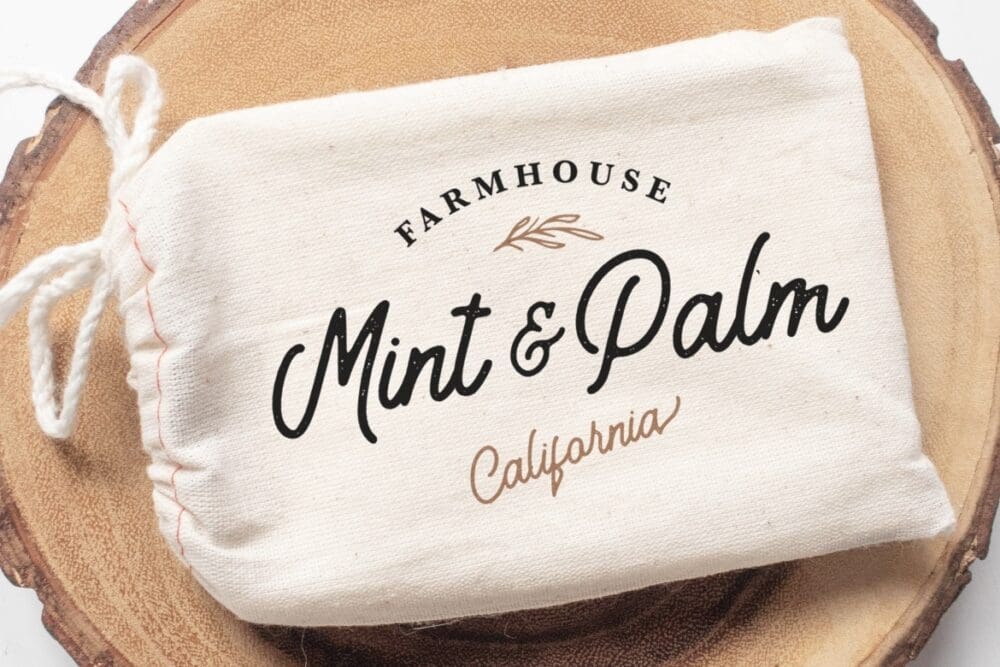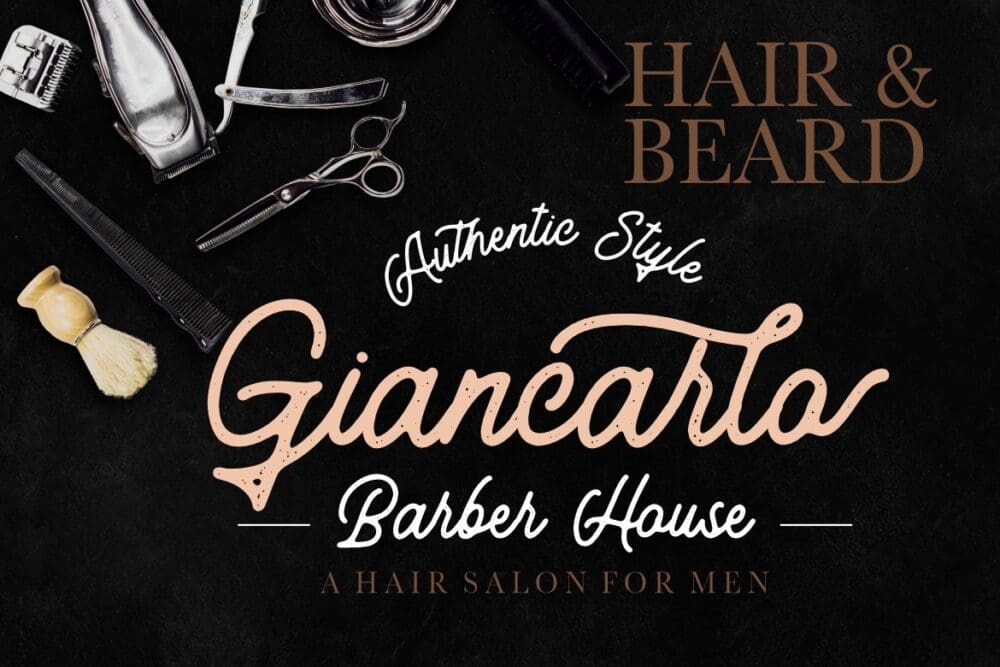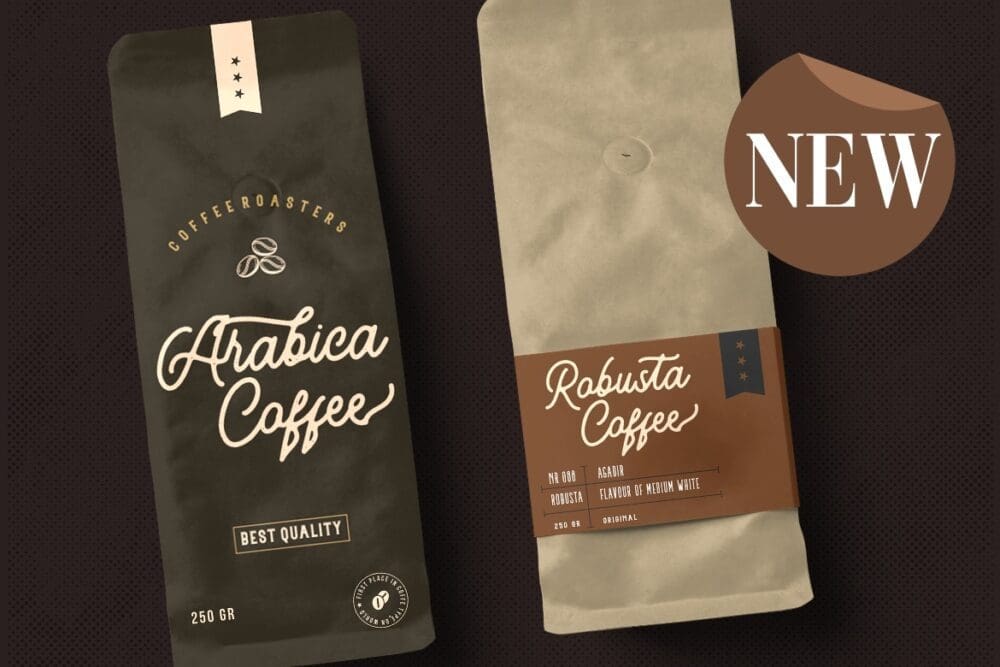
Antipathy Stamp Retro Font
Antipathy Stamp Retro Font which like using stamp effect with rough texture will perfect for grunge or vintage project. Antipathy is perfect for branding projects, labels, photography, watermark, invitation, stationery, and more.